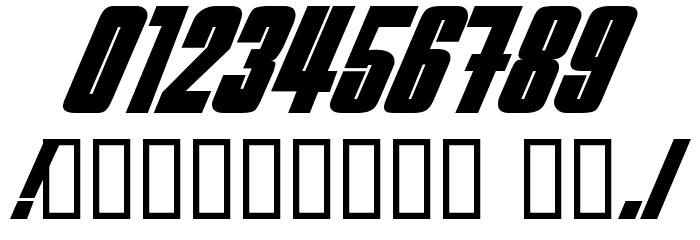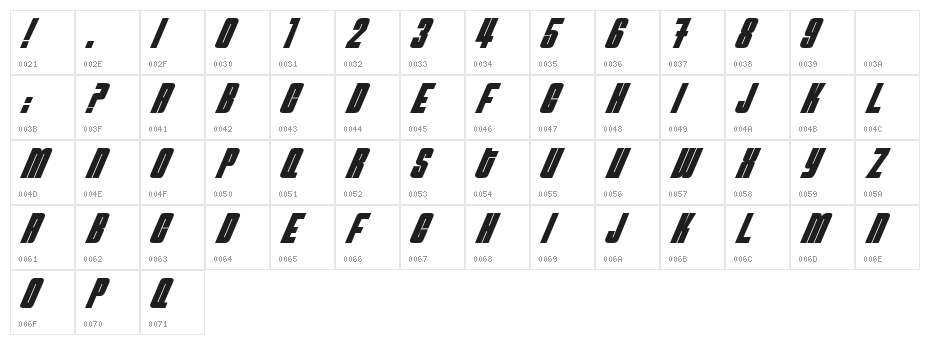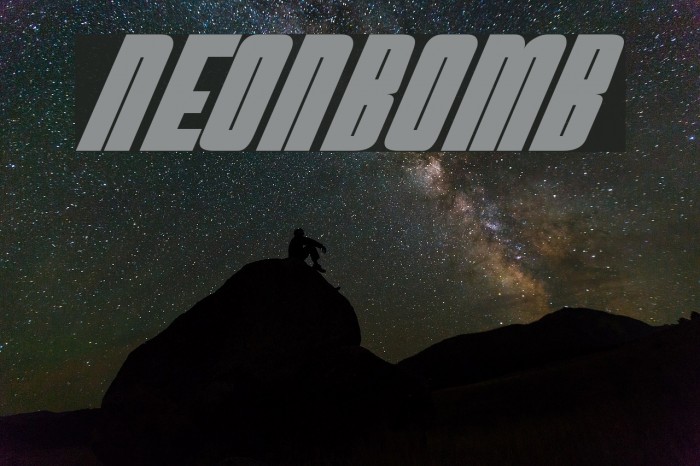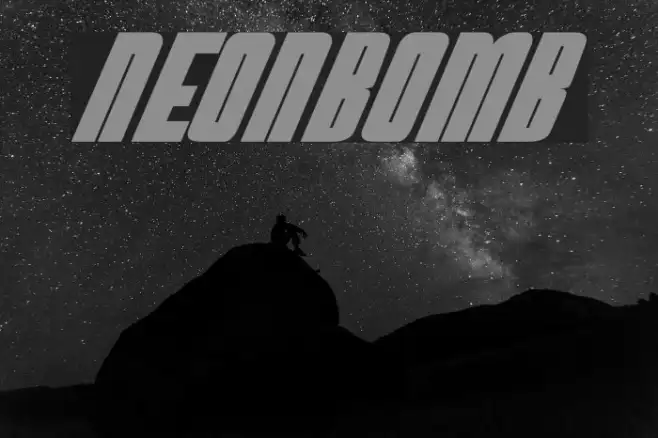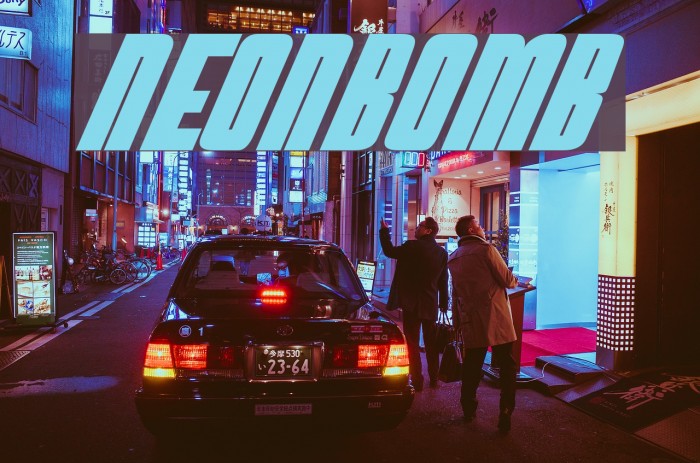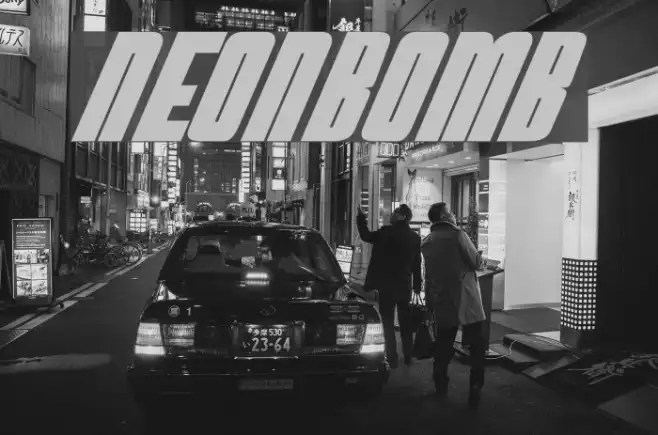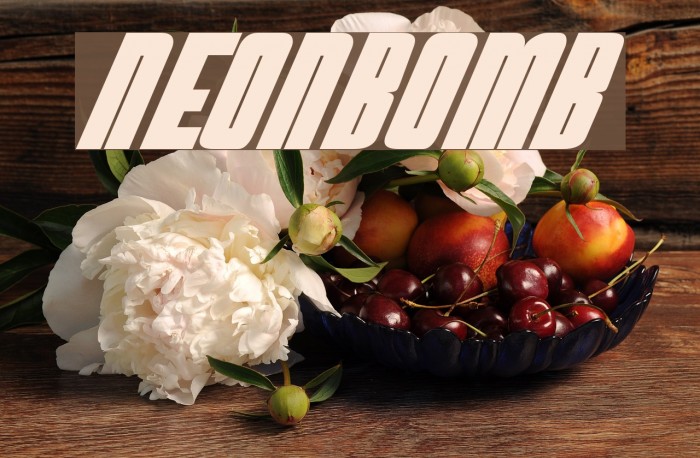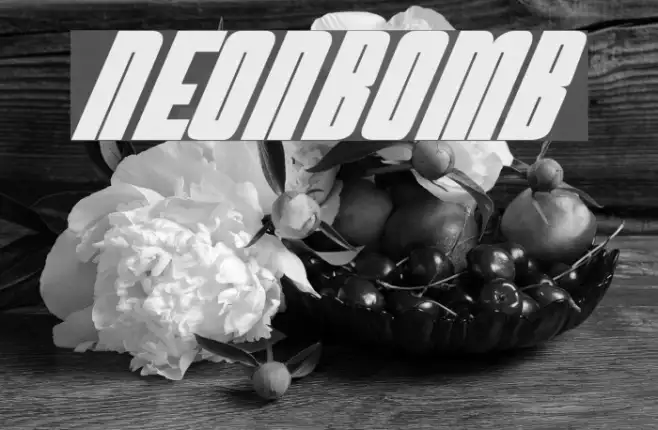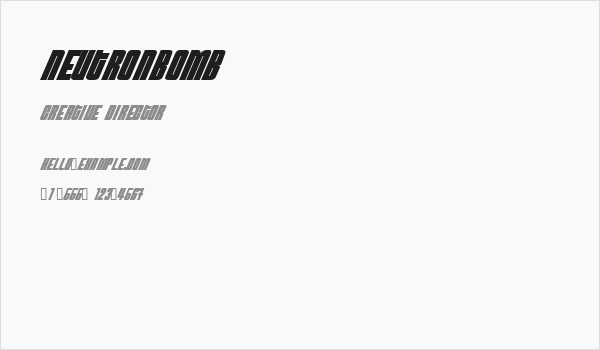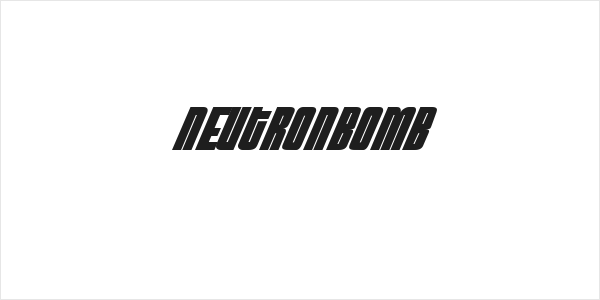
NeutronBomb Font
NeutronBomb Description
This font features a bold and dynamic design with a strong, angular presence. The characters are slanted, giving a sense of movement and speed, reminiscent of futuristic or sci-fi themes. The strokes are thick and consistent, providing a robust and impactful appearance. The uppercase and lowercase letters maintain a uniform style, enhancing the cohesive look of the typeface. The numbers and special characters follow the same bold and slanted design, ensuring versatility across different uses. This font is ideal for projects that require a modern and energetic touch.